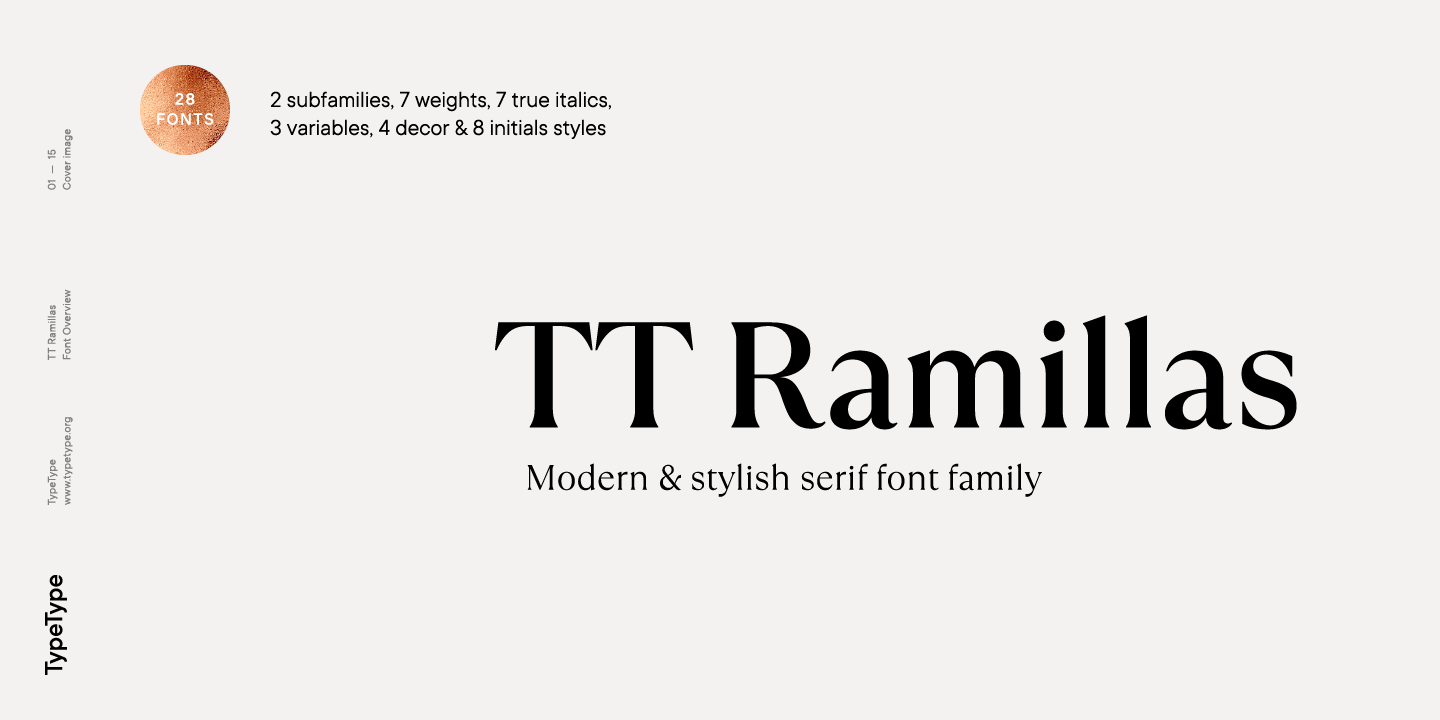
The TT Ramillas Font is an exceptional choice for a wide array of design applications that demand a sophisticated and modern serif aesthetic with a touch of timeless elegance. Imagine it gracing the pages of a high-end fashion magazine, lending authority to a corporate brand's editorial content, or providing beautifully legible body text for a luxury product website. Its refined yet robust character also makes it ideal for book design, professional reports, and any project where clarity, elegance, and a sense of distinguished quality are paramount. This font excels in environments that value both aesthetic beauty and supreme readability.
What makes TT Ramillas Font so exciting is its masterful blend of classic serif proportions with contemporary detailing, creating a typeface that feels both familiar and refreshingly new. It strikes a harmonious balance between traditional warmth and modern crispness, making it incredibly versatile. The meticulously crafted serifs, balanced counter-forms, and subtle variations in stroke width contribute to an overall sense of professional polish and refined artistry. This thoughtful design ensures that it's not only beautiful to look at but also highly legible in both large headlines and small body text, making it a truly engaging and reliable choice for designers.
The TT Ramillas Font family is comprehensive, offering an extensive range of weights and styles to provide designers with ultimate flexibility. You can typically find a wide spectrum, from a delicate Thin or Light, perfect for subtle accents or extensive body text, to a powerful Bold or Black, ideal for impactful headlines and strong statements. Furthermore, the inclusion of italics and potentially even variable font capabilities in some versions means you can achieve an even wider array of visual expressions. This vast selection ensures that TT Ramillas Font Free Download provides all the tools you need for any project demanding a blend of classic elegance and modern sophistication.